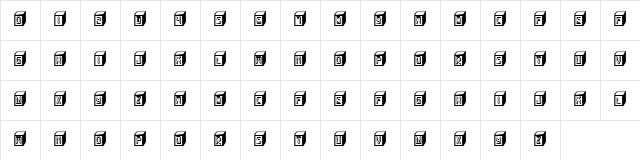
Lover Bright Regular
Design Context for Lover Bright Typeface
Lover Bright is a composed and adaptable typeface that performs quietly and consistently across a wide range of design contexts.